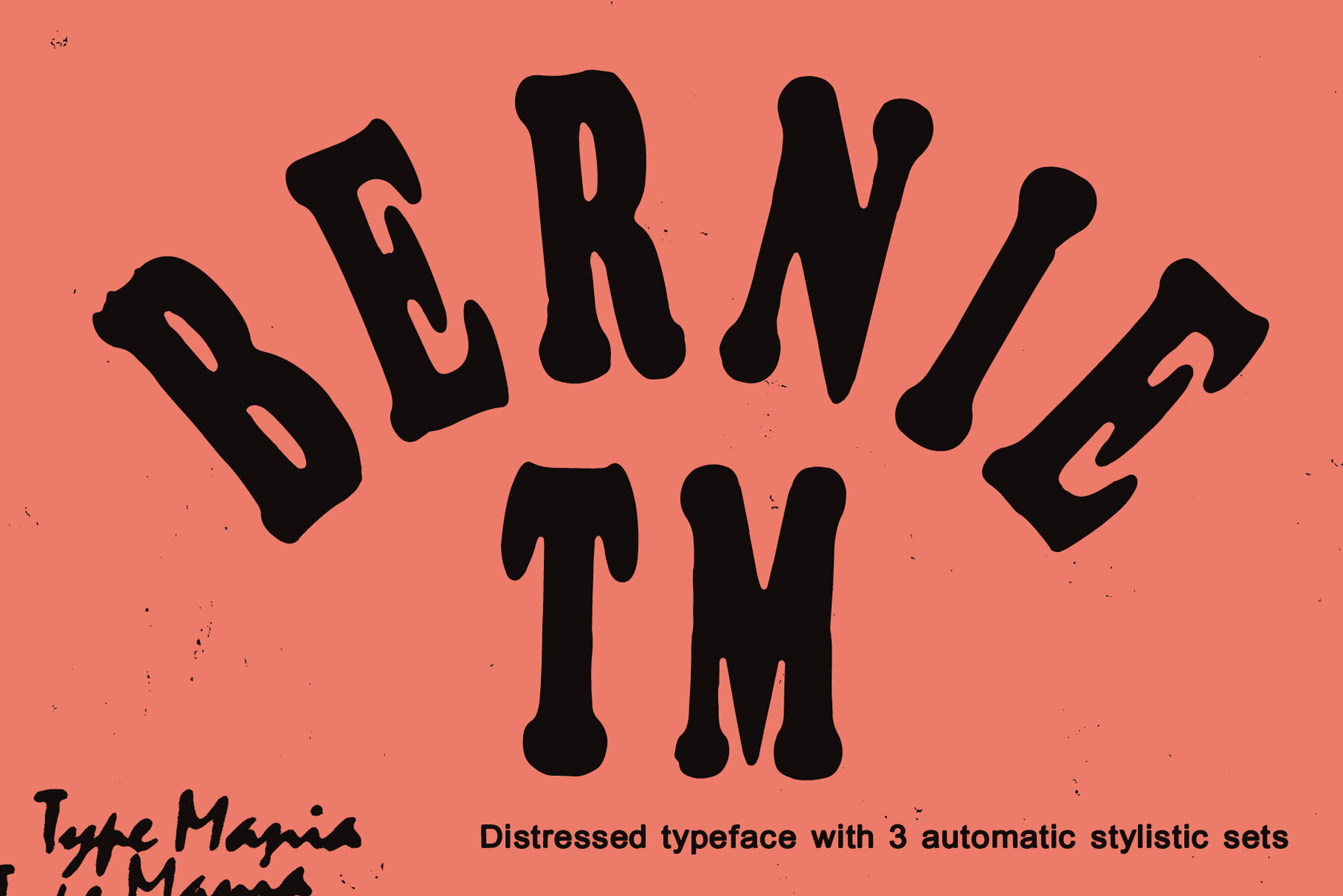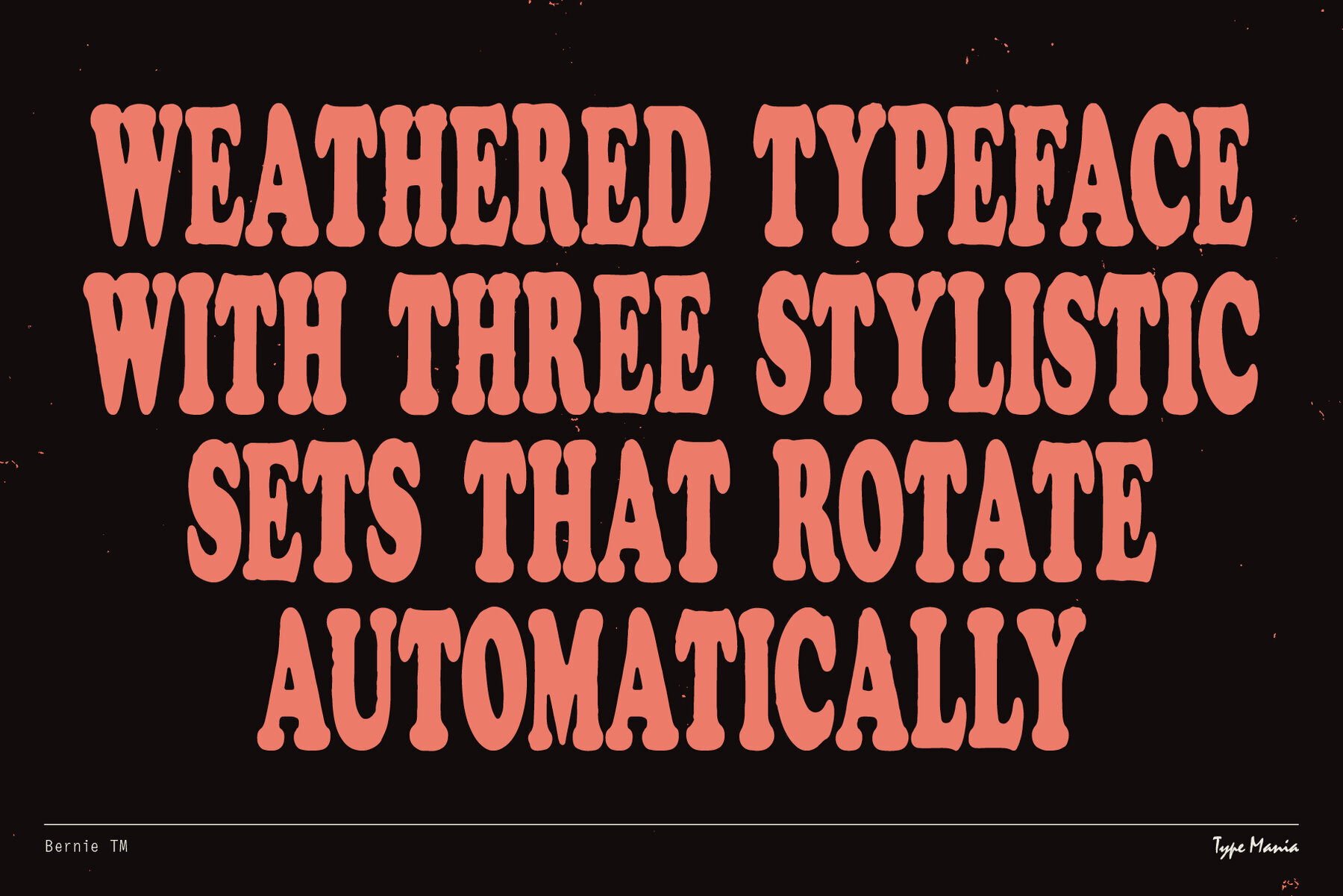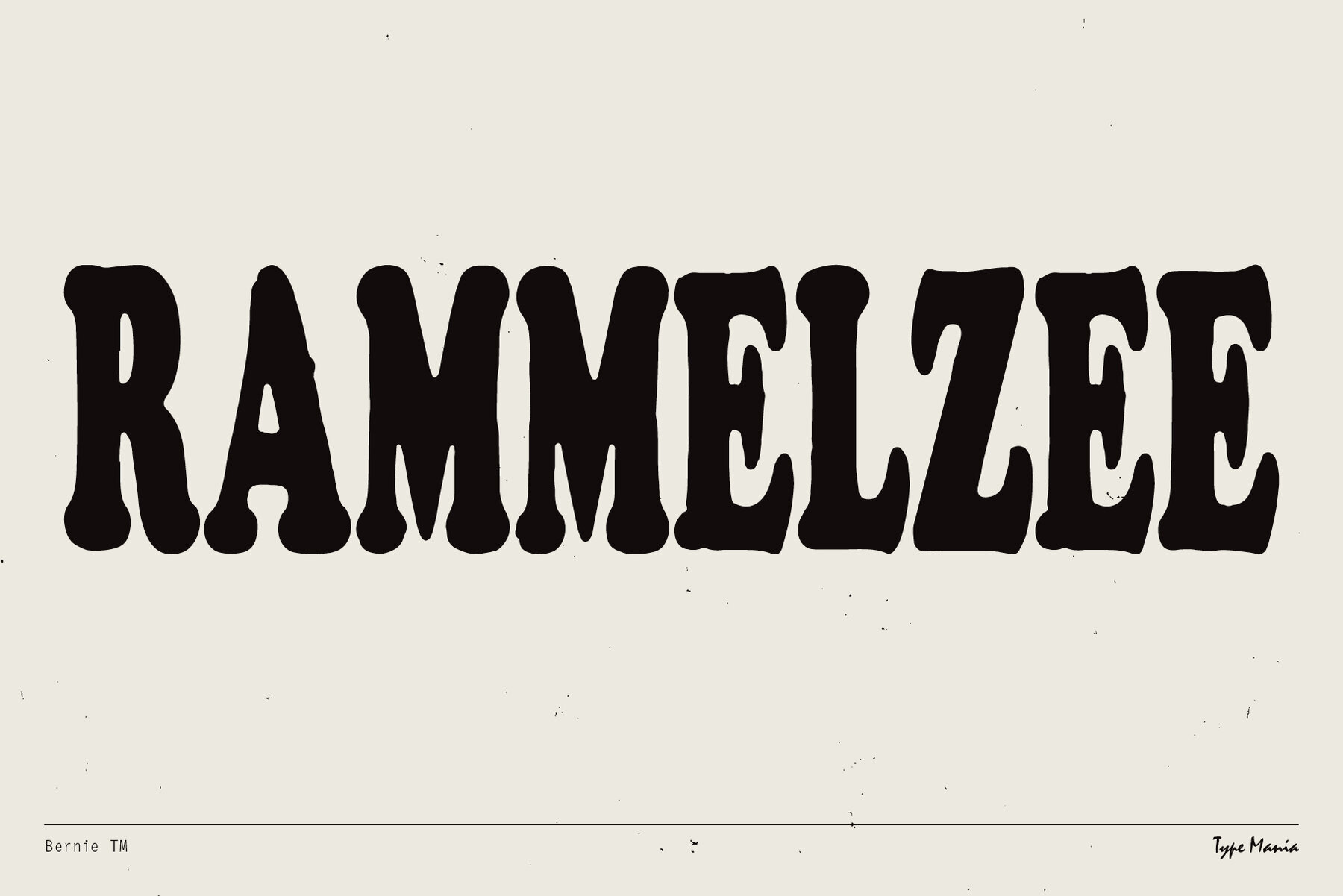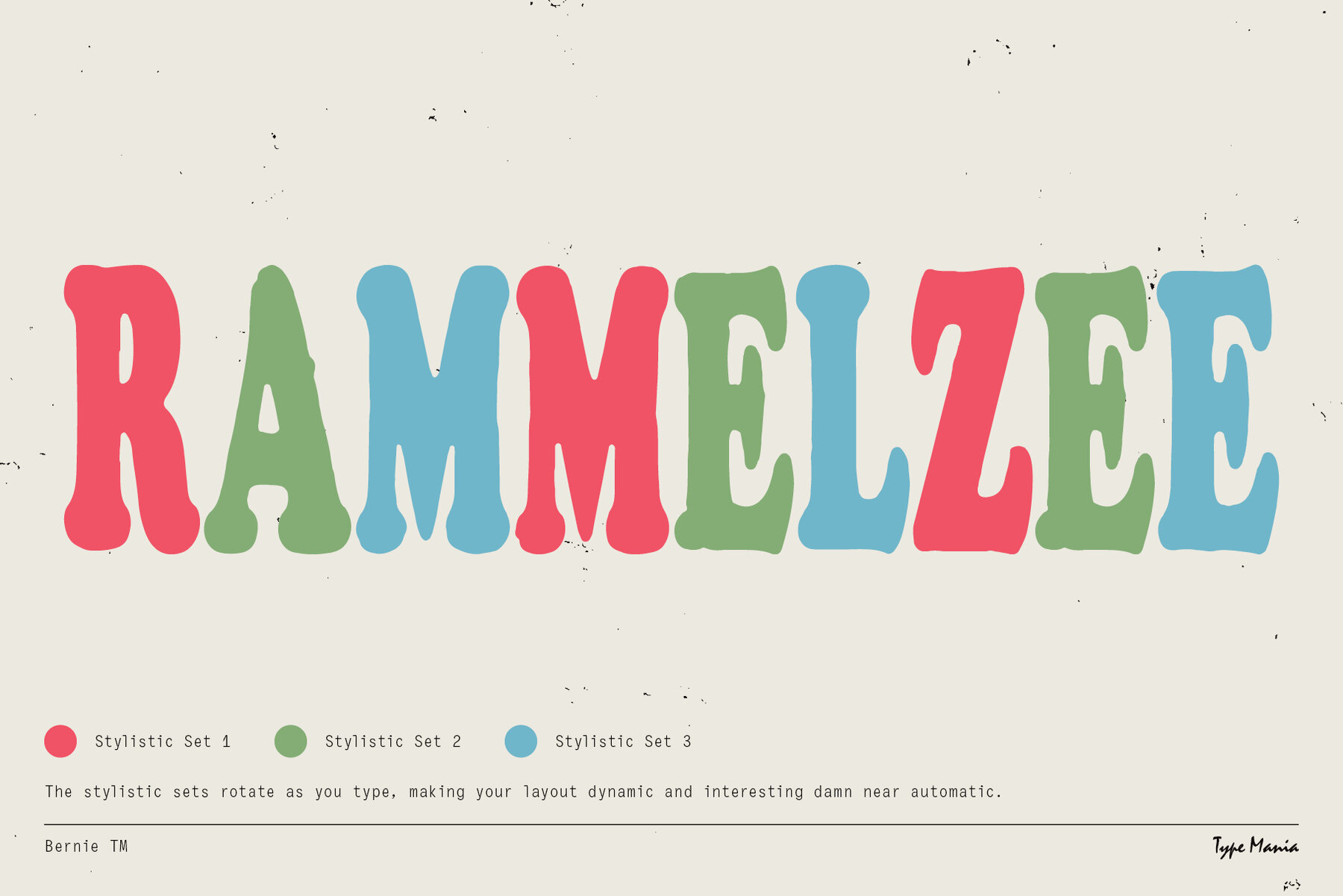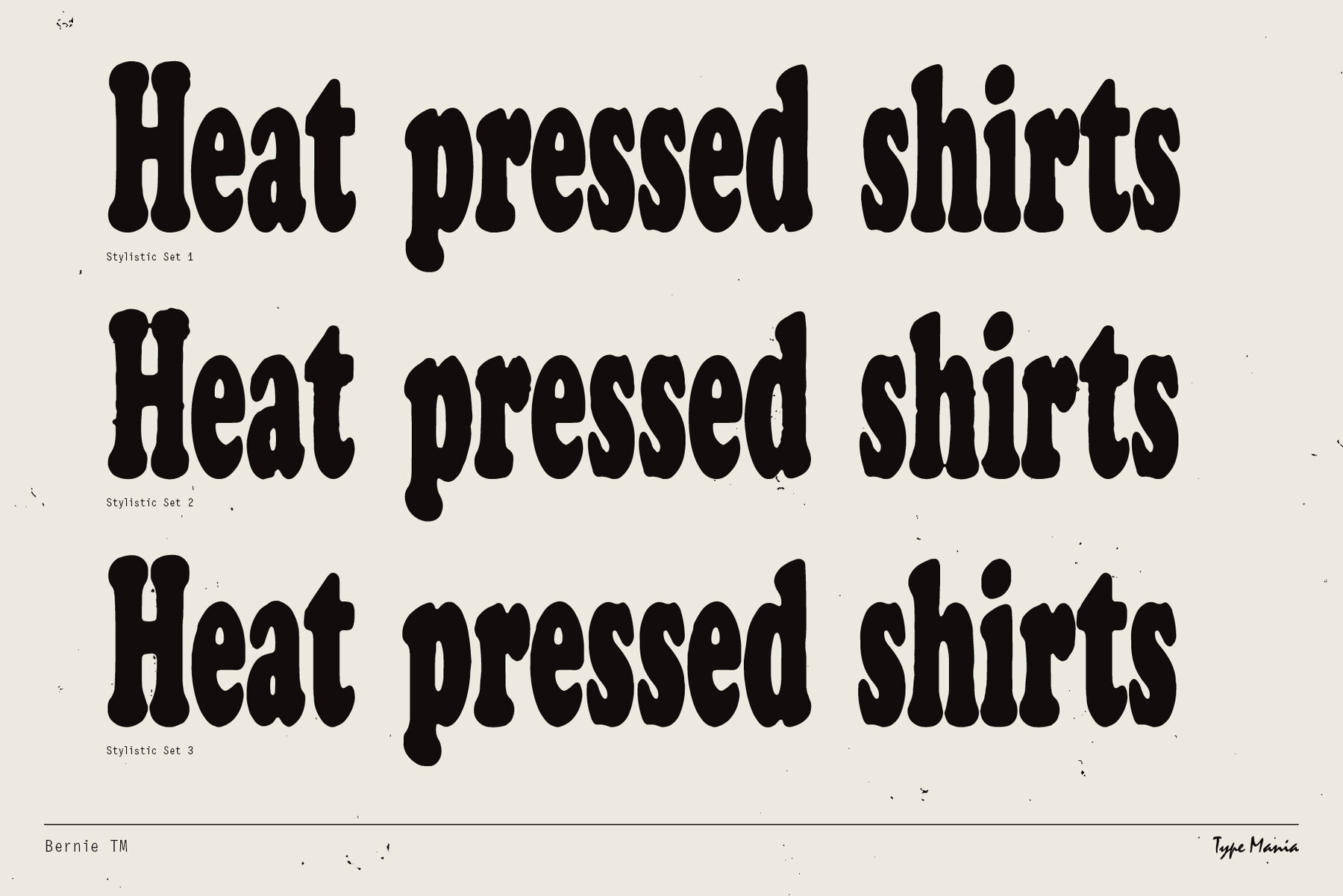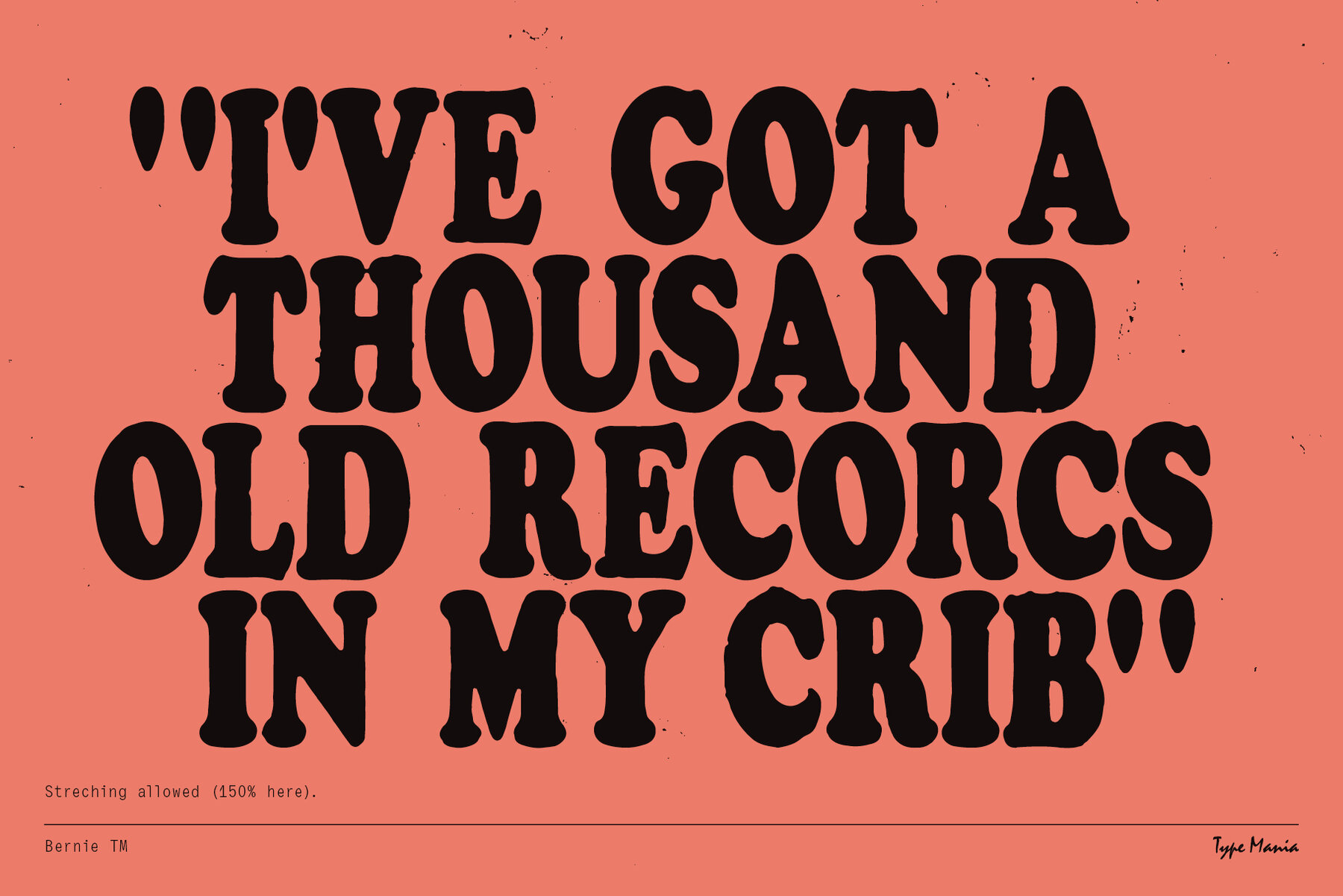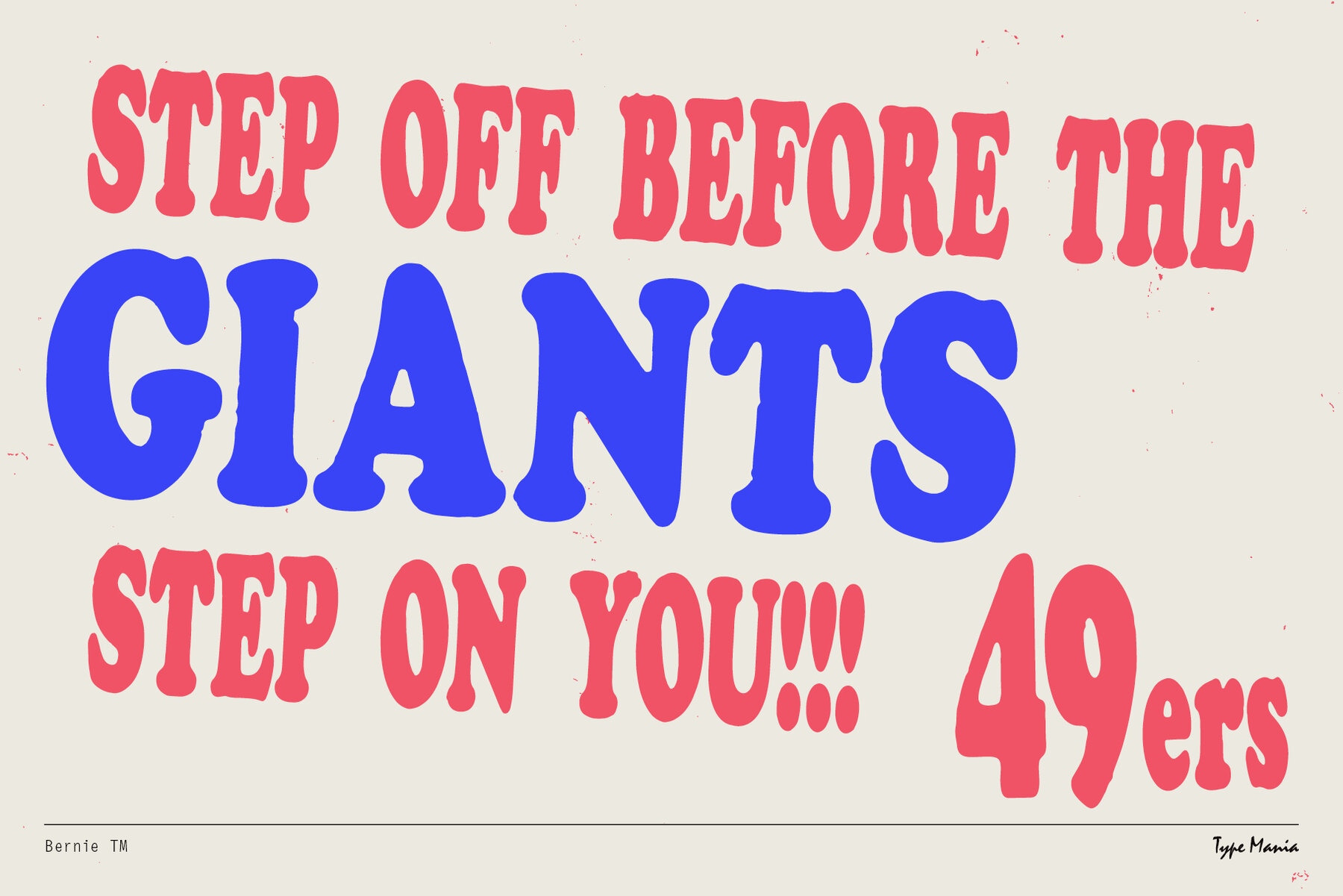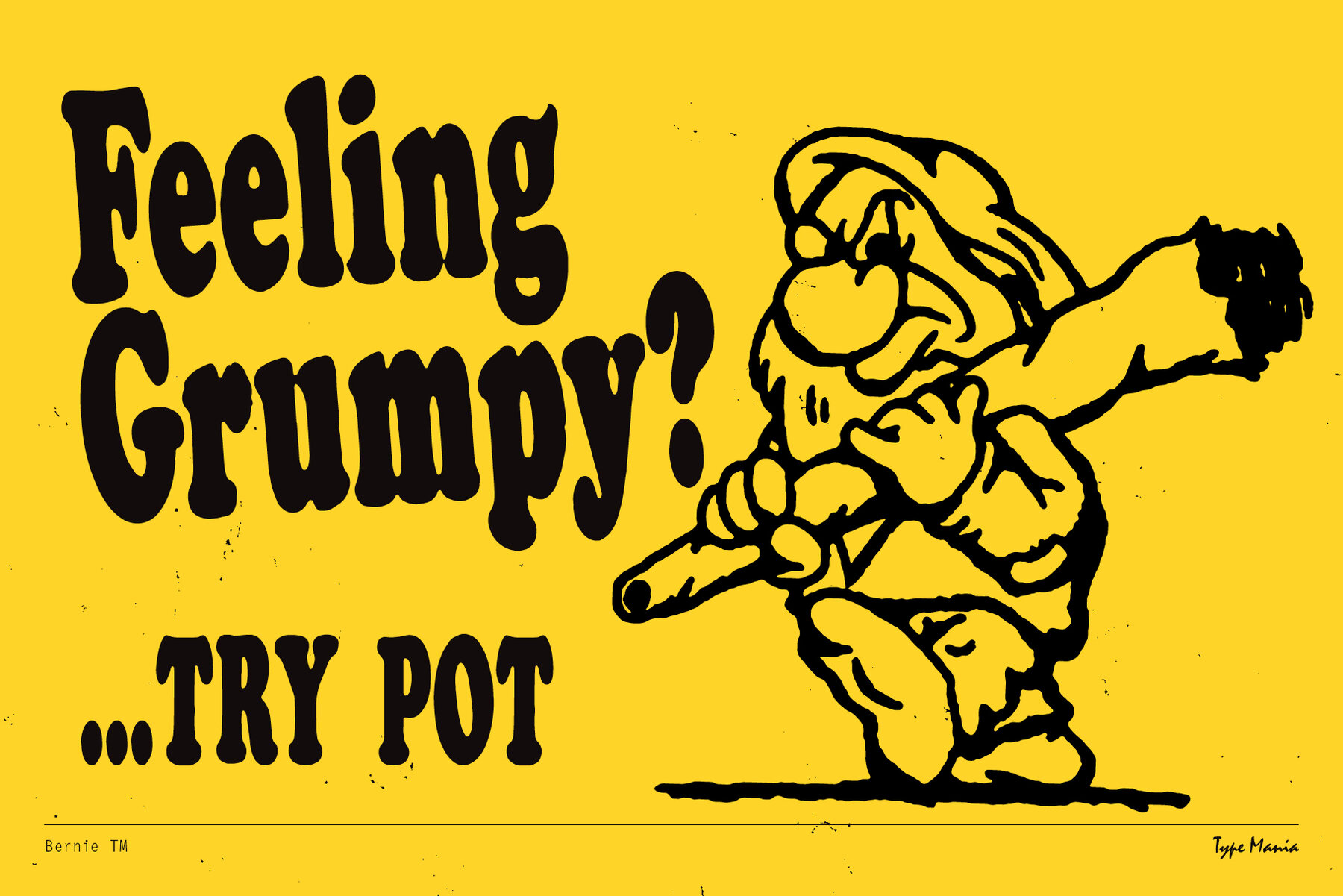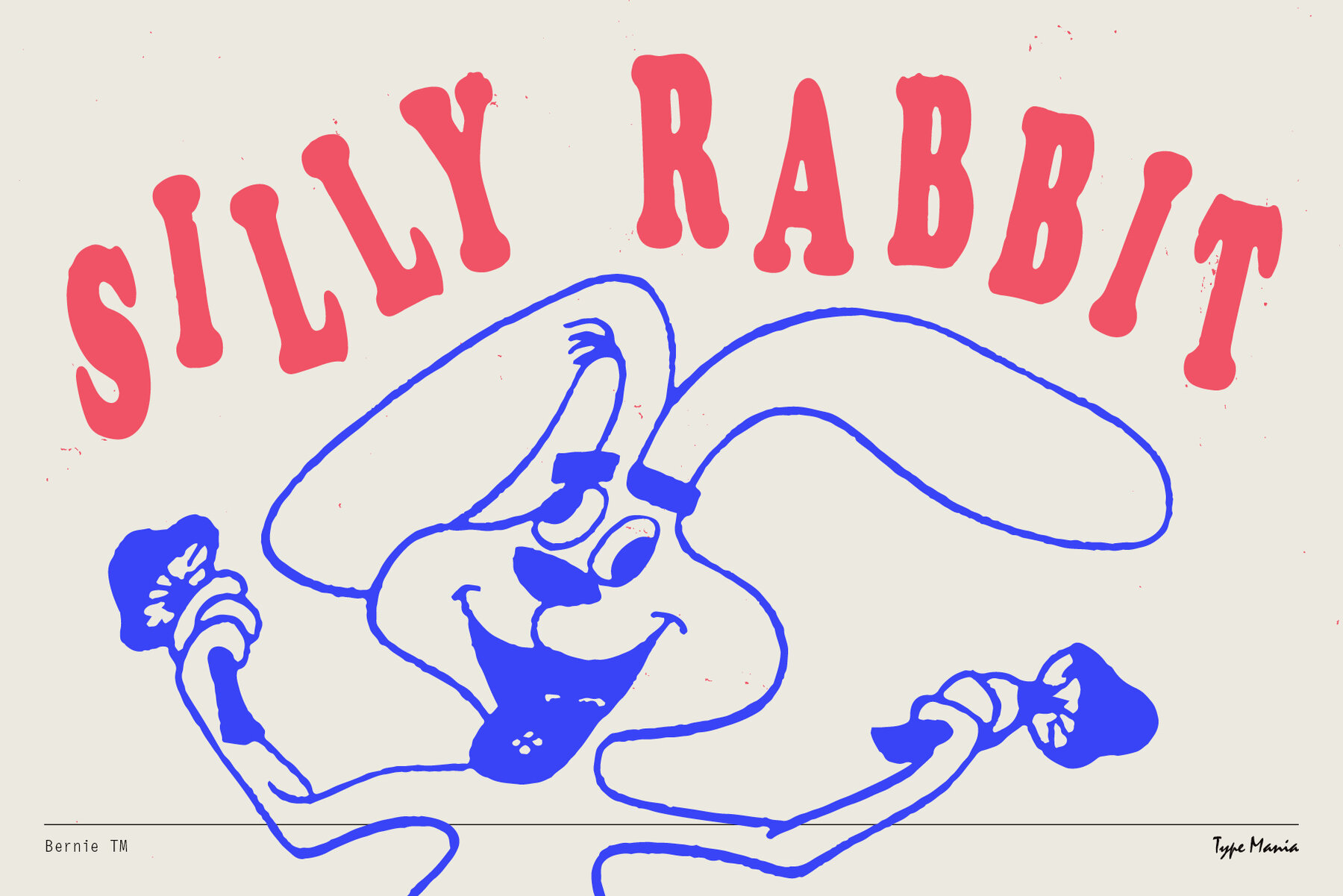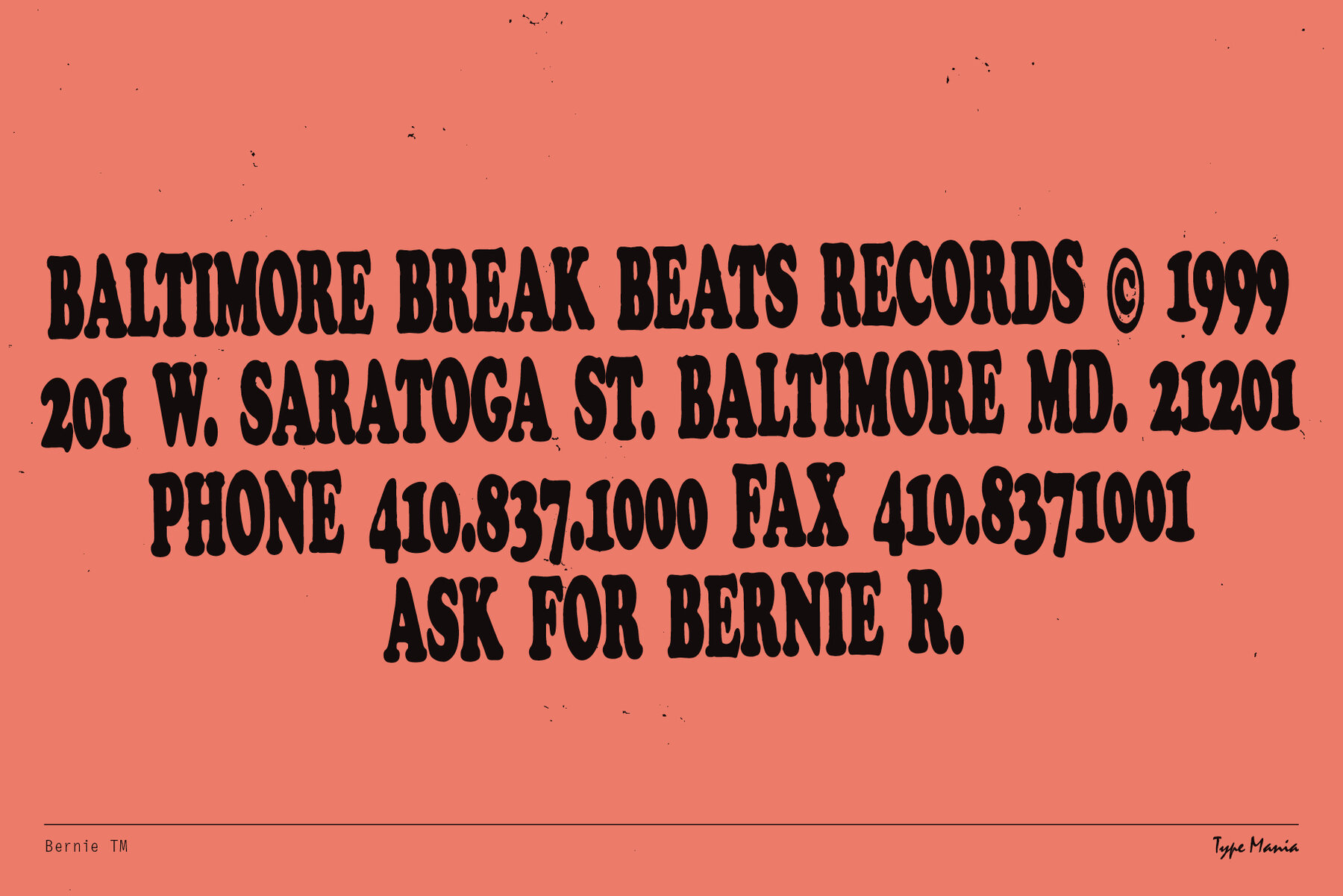
Ask for Bernie TM. With three distinct stylistic sets rotating automatically, our font offers versatility, lending each composition its own unique flair with a natural, homegrown appeal. Whether for print or digital, it's guaranteed to cozify any project.
OpenType features
• 3 stylistic sets
• The font is programmed to automatically shift between the stylistic sets